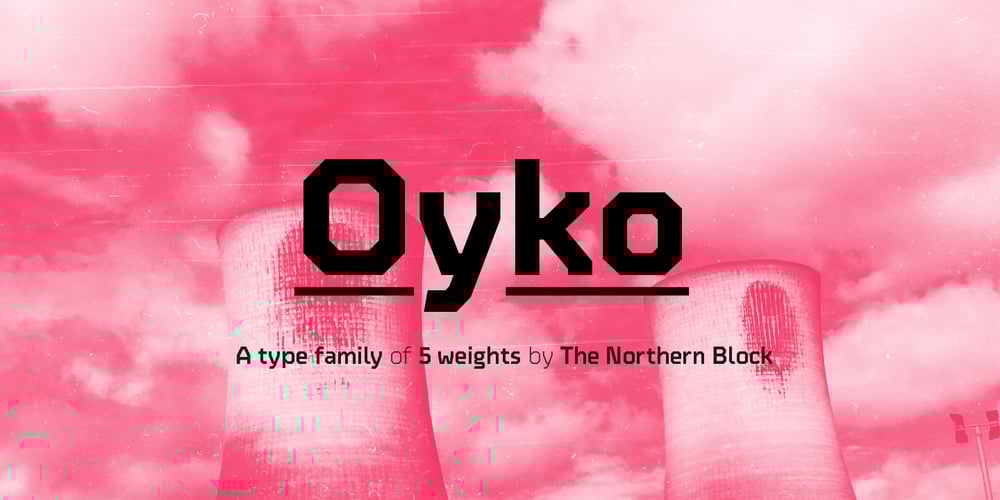
Oyko Font Family was designed by Jonathan Hill and published by The Northern Block. Oyko contains 10 styles and family package options. A geometric typeface that follows the grid but understands the rule to go off-grid. The design is sharp, square and engineered yet has plenty of craftsmanship in each character to give it a more human and friendly touch. Oyko is best suited to immersive interfaces, including mobile apps, video games, virtual reality and the web. Details include five purposeful weights with italics, over 500 characters, five variations of numerals, stylistic zeros, and OpenType features.